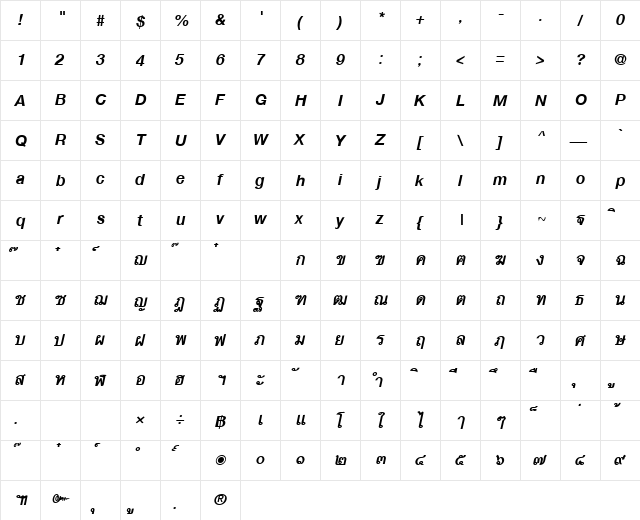
PSL-Text Bold Italic
Design Context for PSL-Text Typeface
PSL-Text offers clean, dependable letterforms without strong stylistic allegiance, making it a practical choice for designers who need flexibility. The dynamic lean of this cut emphasises speed and emphasis in any layout. The heavy weight commands attention and anchors typographic hierarchies.